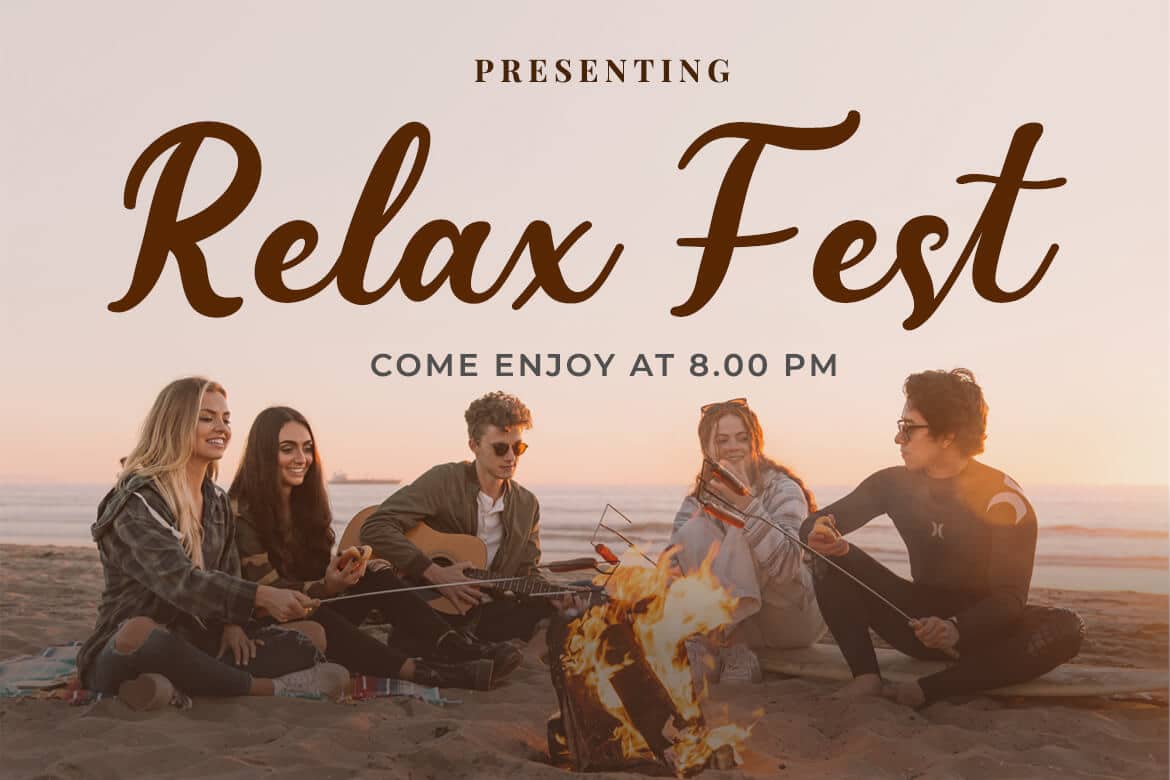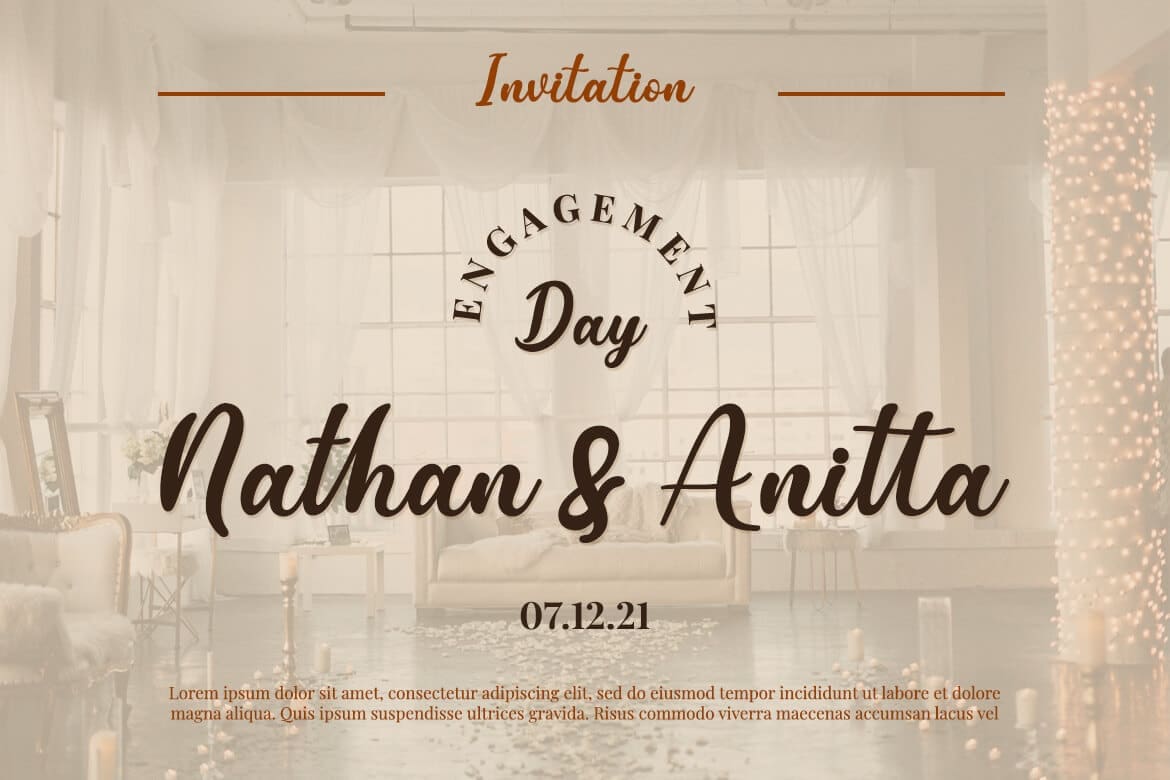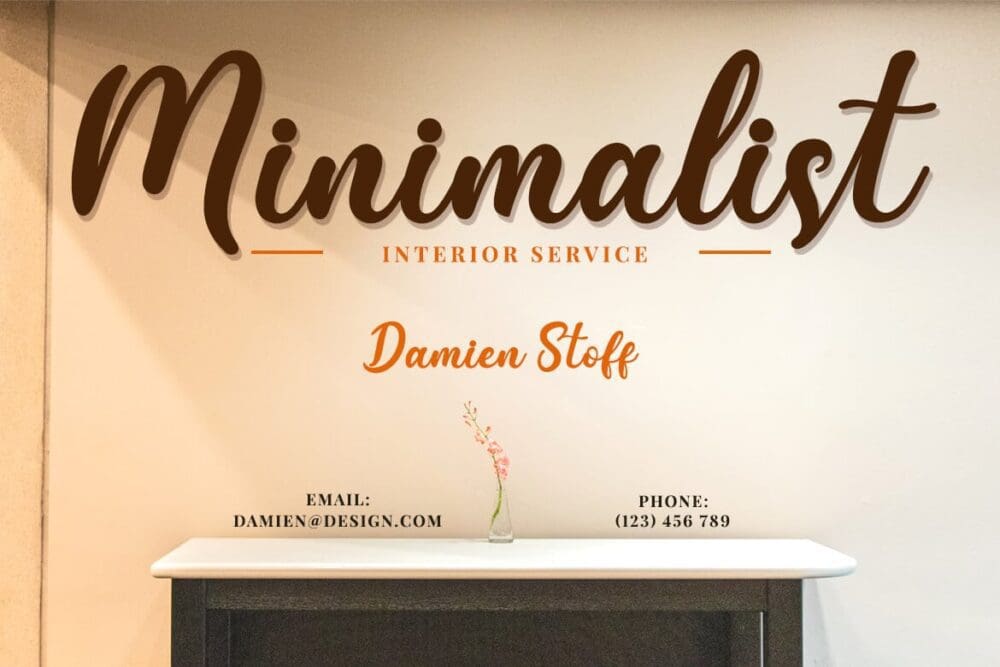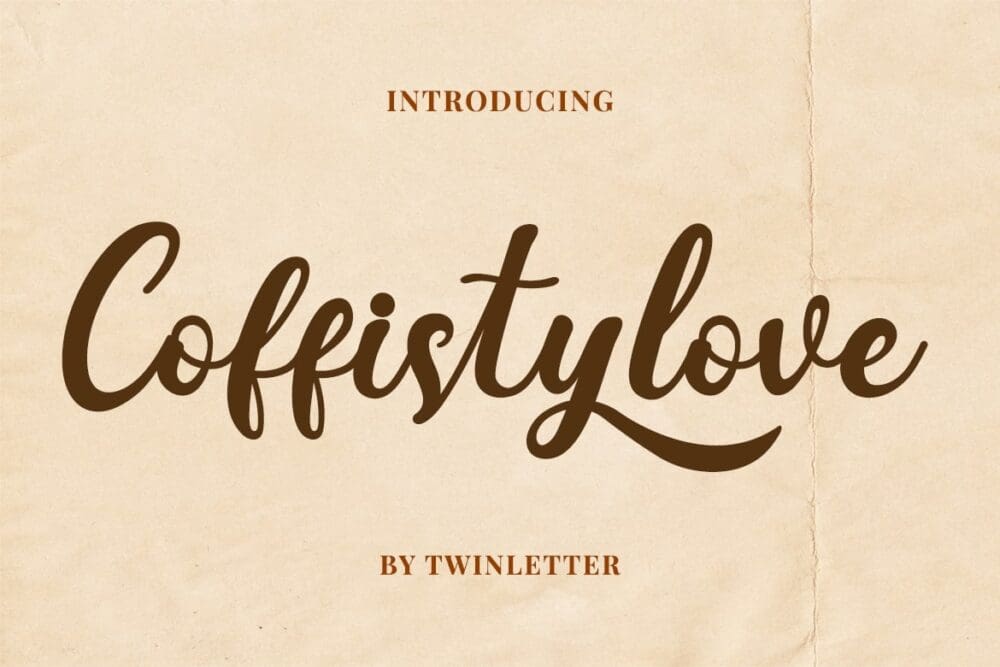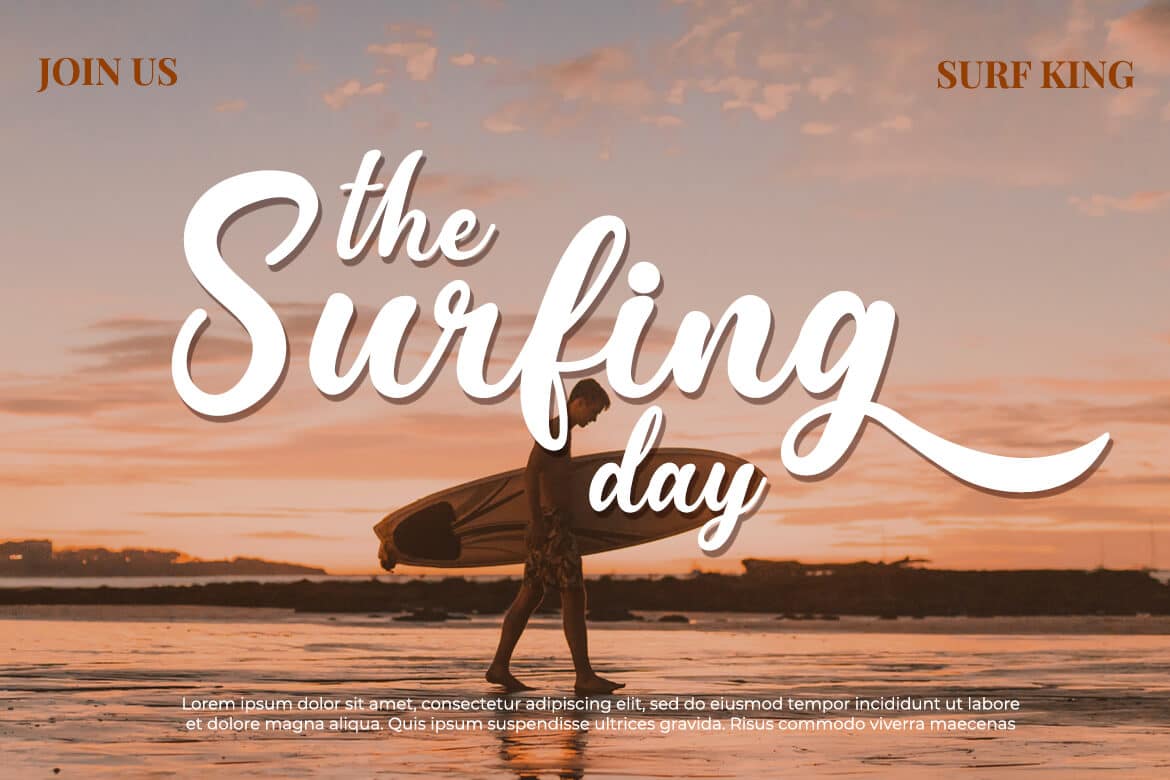
Coffistylove Font
Coffistylove is a font designed with amazing details in mind, resulting in a pleasant, elegant, and appealing font. Because it has a wonderful design quality, you can make works that will interest visitors with this font.